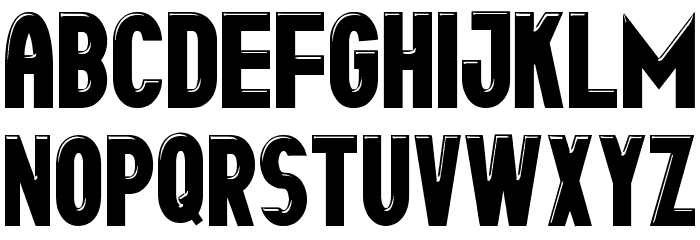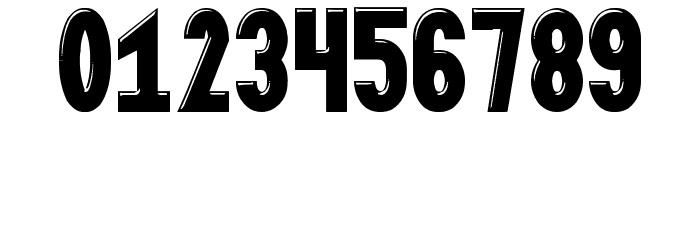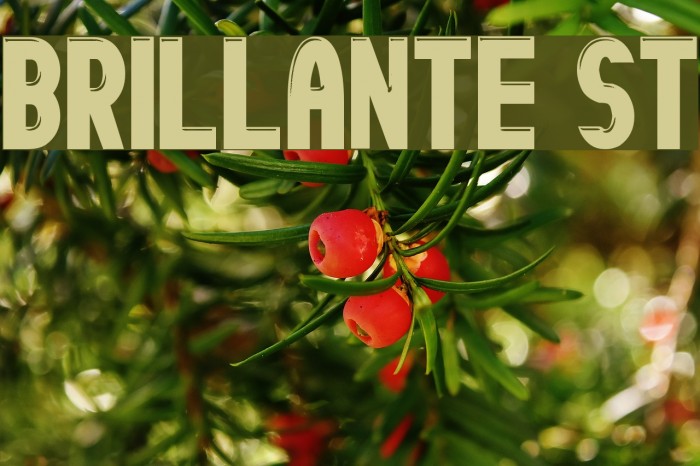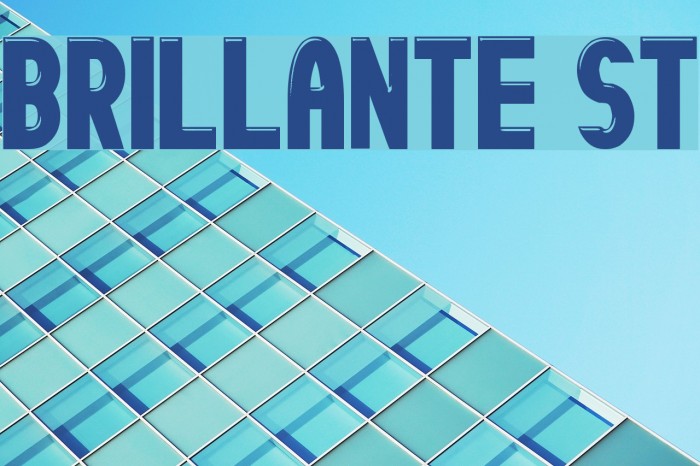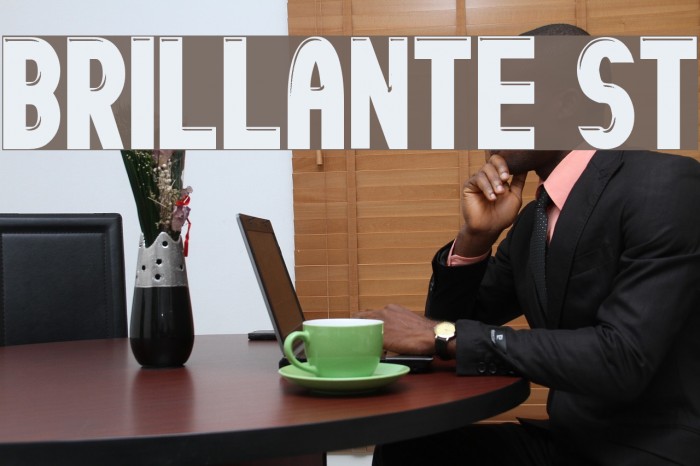
Brillante St Font
This font features a bold and striking design, characterized by its thick, block-like letters with a subtle shadow effect that gives a sense of depth. The uppercase letters are uniform in height, with sharp angles and clean lines, creating a modern and impactful appearance. The numerals follow the same bold style, ensuring consistency across all characters. This font's strong presence makes it ideal for attention-grabbing headlines and titles. Its geometric structure and shadow detailing add a unique flair, making it stand out in any design project.
A bold, shadowed font with a modern, geometric style.
- Font: Brillante St
- Proposed Projects: Ideal for posters, headlines, logos, and branding materials that require a strong visual impact.